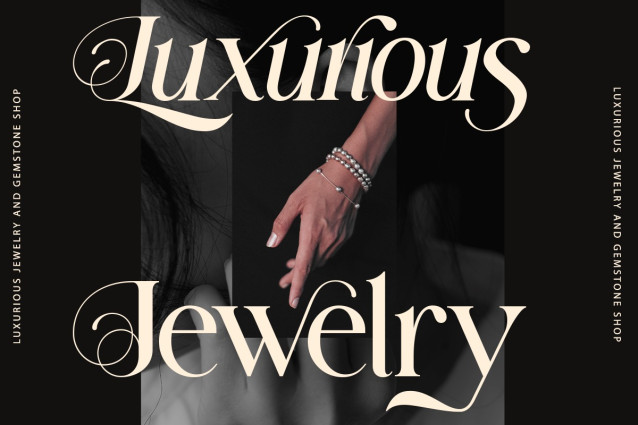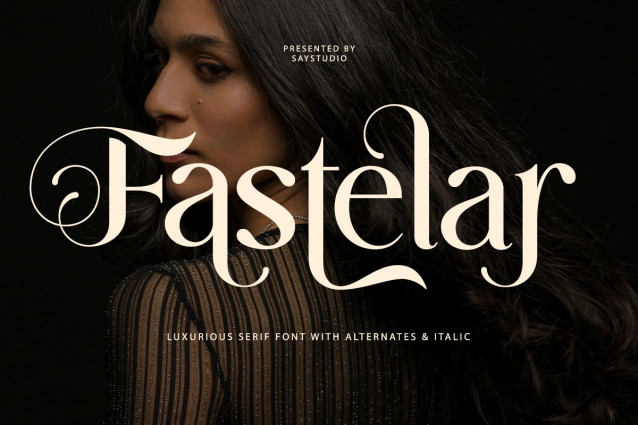
Fastelar Font
Fastelar Font is luxuriuous branding font designed to captivate, with high-contrast strokes and graceful curves bring an air of luxury to any project for a premium brand identity, an elegant editorial layout, or an engaging website, Fastelar ensures your design stands out. Each character is carefully shaped for strength, balance, and readability, while its true italics add fluidity and visual interest, making your text effortlessly stylish.